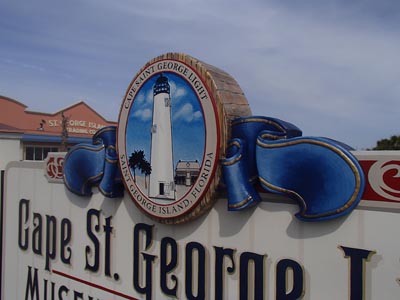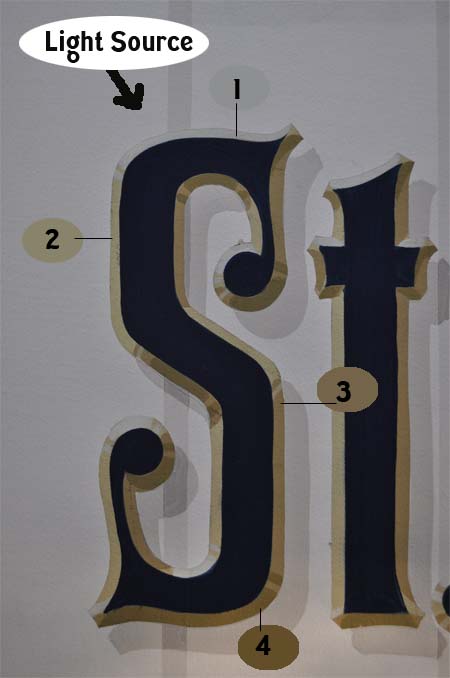
Over the last 2 months I have been working through this project. I've learned many things on the forums from the likes of Joe Cieslowski, Dave Correll and others too many to mention. Carving, glazing, how to use latex coatings for sign applications came into play on the project. I thank them.
St. George Lighthouse Project.
Bob... I like it. The effect and shading really make it pop.
It´s interesting to see the process how you guys make these signs at a big scale!
What a great looking project.......one to be very proud of!!!